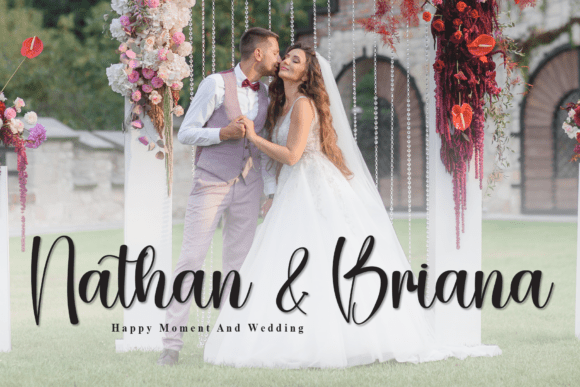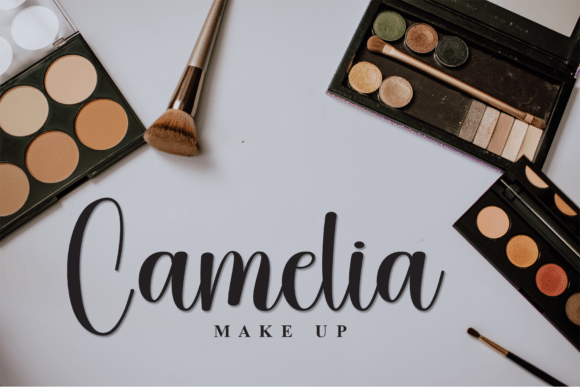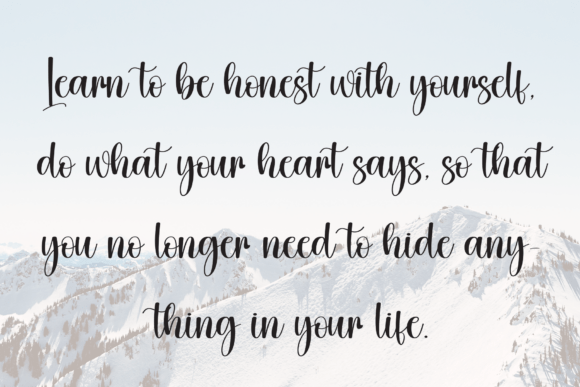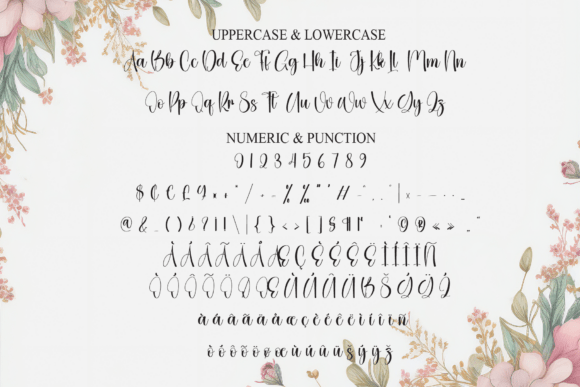
Introducing Biography Font: Elevate Your Designs with Elegance and Creativity
Are you a designer, crafty enthusiast, or business owner looking for a unique and stylish font to take your projects to the next level? Look no further than Biography Font, a special creative product designed to provide you with an extraordinary experience. Our latest style letters are perfect for a wide range of applications, from wall displays and wedding invitations to social media post logos, advertisements, product packaging, and more.
Unleash Your Creativity with Biography Font
Biography Font is not just a font, but a tool that can help you express your creativity and bring your ideas to life. With its elegant and tasteful handwriting style, this font is ideal for designers and crafters who want to add a touch of sophistication to their work. Whether you’re creating a logo, invitation, or social media post, Biography Font is the perfect choice.
Biography Font is incredibly versatile and can be used for a wide range of design projects, including:
- Wall displays: Add a touch of elegance to your wall art with Biography Font.
- Wedding invitations: Make your wedding invitations truly special with this beautiful font.
- Social media post logos: Elevate your social media presence with custom logos created using Biography Font.
- Advertisements: Stand out from the competition with eye-catching ads featuring Biography Font.
- Product packaging: Add a touch of sophistication to your product packaging with this elegant font.
- Product designs: Use Biography Font to create stunning product designs that showcase your brand’s personality.
- Labels: Create custom labels that reflect your brand’s style with Biography Font.
- Photography: Add a touch of elegance to your photography with custom watermarks created using Biography Font.
- Invitations: Create custom invitations for any occasion with Biography Font.
- Stationery: Elevate your stationery with this beautiful font, perfect for business or personal use.
Why Choose Biography Font?
So, why choose Biography Font over other fonts on the market? Here are just a few reasons:
- Unique style: Biography Font offers a unique and stylish handwriting style that’s sure to set you apart.